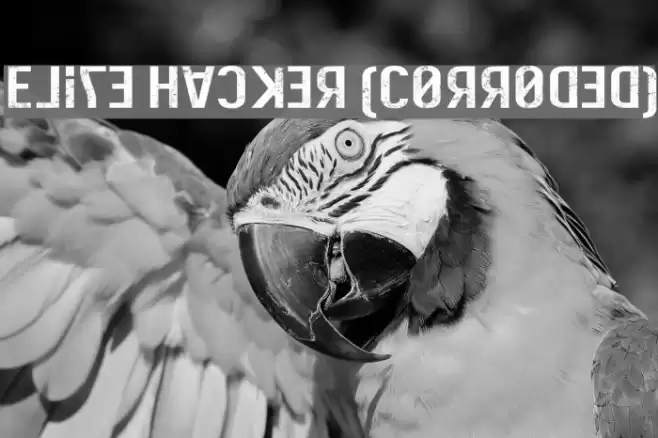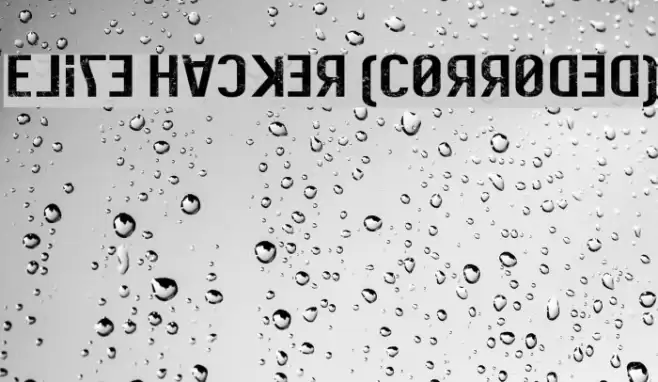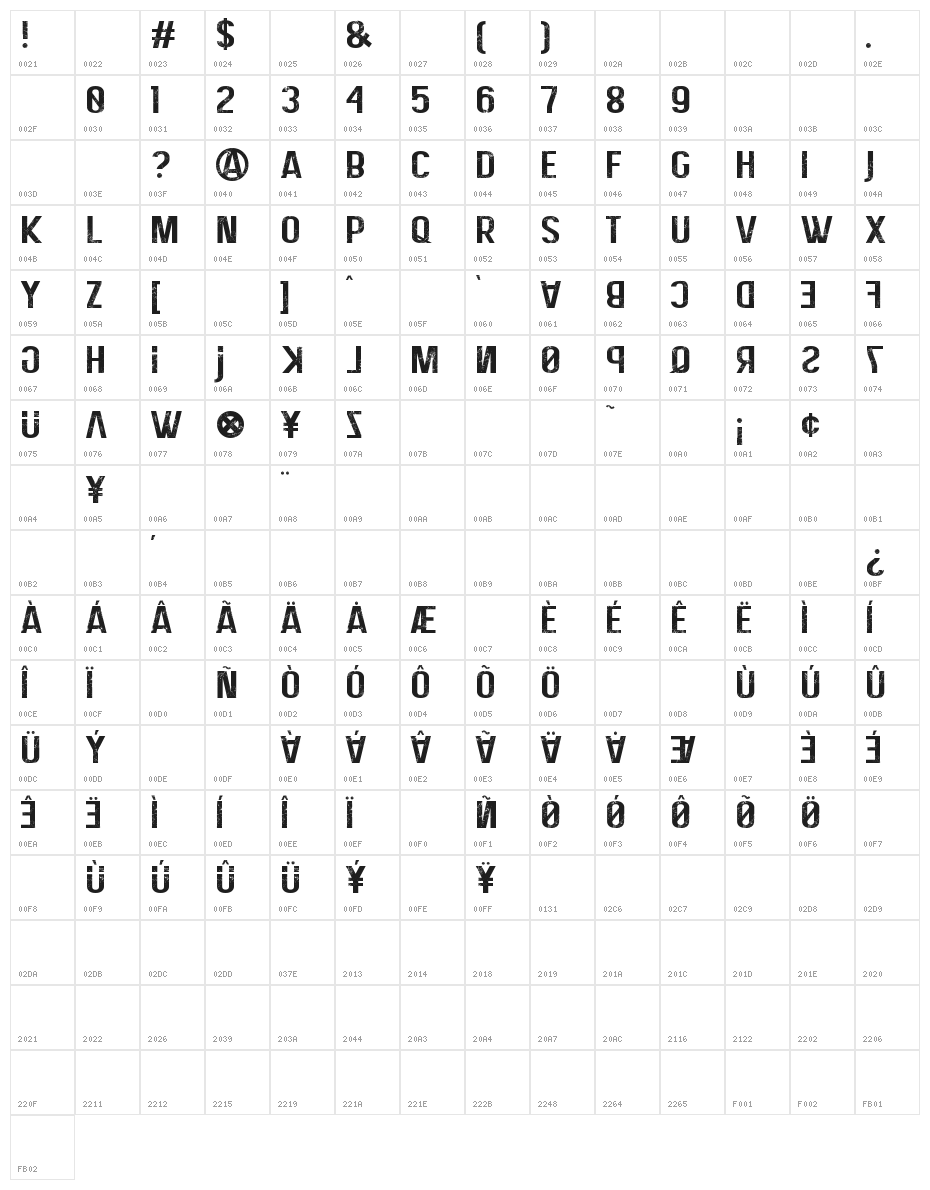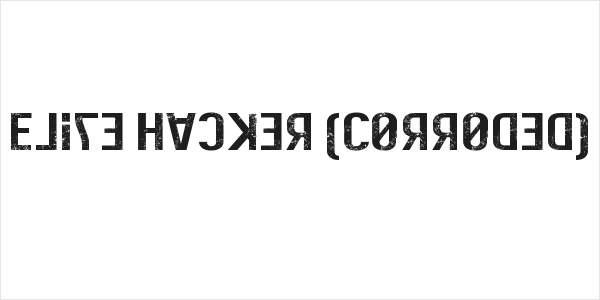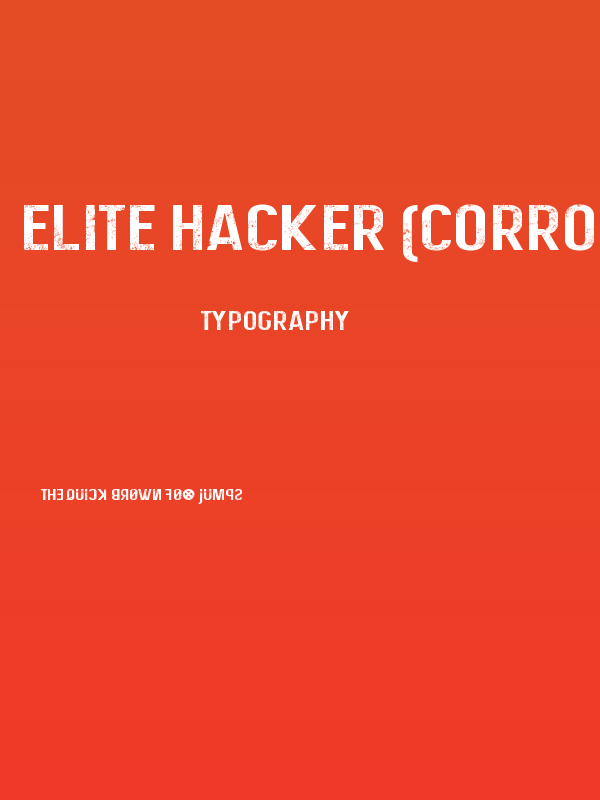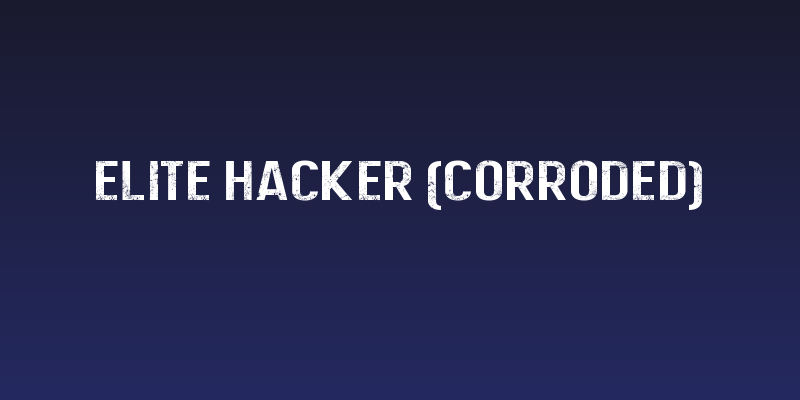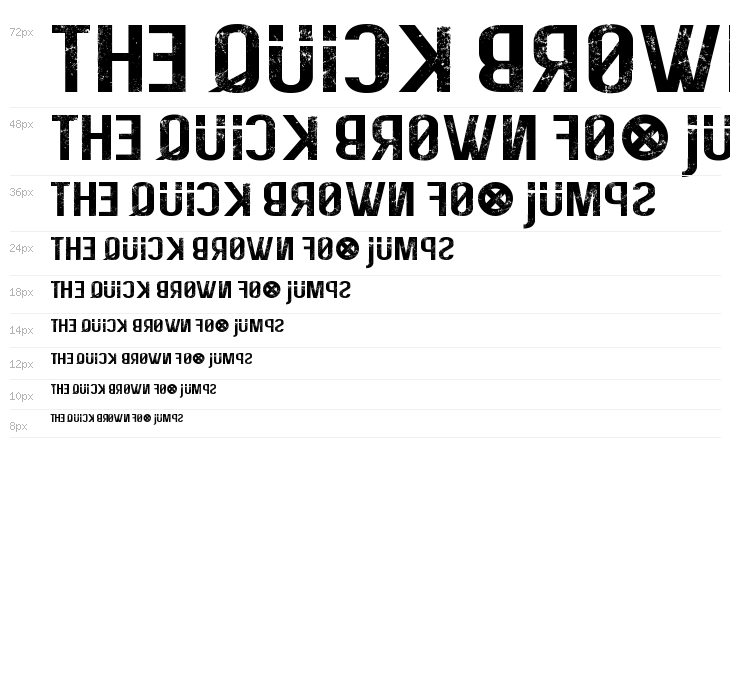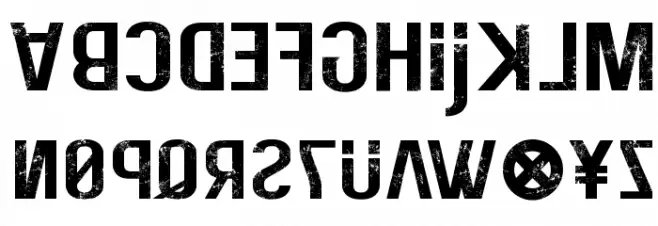
Elite Hacker (Corroded) Font
Elite Hacker (Corroded) Description
This font features a bold, distressed style with a corroded texture that gives it a rugged, industrial look. The characters are uppercase and lowercase, with numbers and a selection of special characters. The design incorporates a rough, worn effect, making it ideal for projects that require a gritty, edgy aesthetic. The bold strokes and irregular texture create a striking visual impact, perfect for capturing attention in headlines or logos. The font's unique appearance is reminiscent of urban decay, making it suitable for themes related to technology, hacking, or dystopian settings.
A bold, distressed font with a corroded, industrial texture from Distorted Eroded fonts.
- Proposed Projects: Ideal for posters, album covers, video game titles, and branding for edgy or tech-related themes.
- Overall Style: Industrial, Edgy